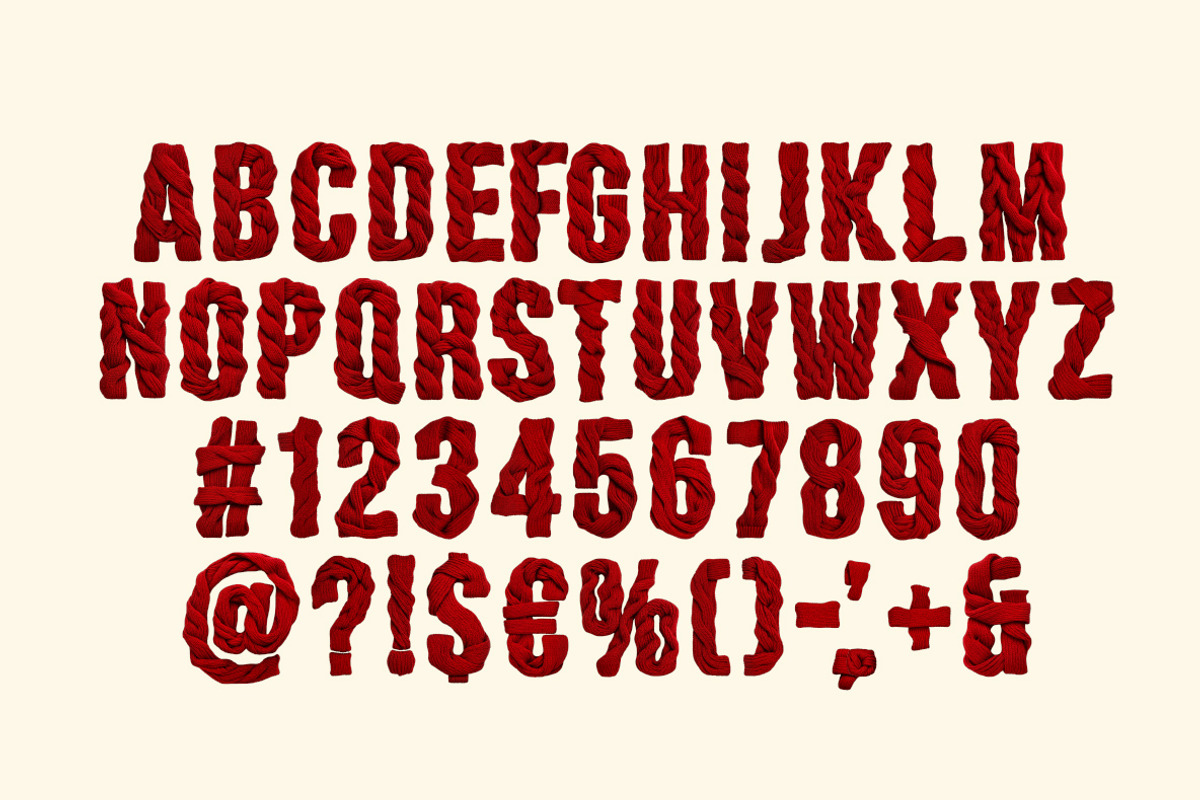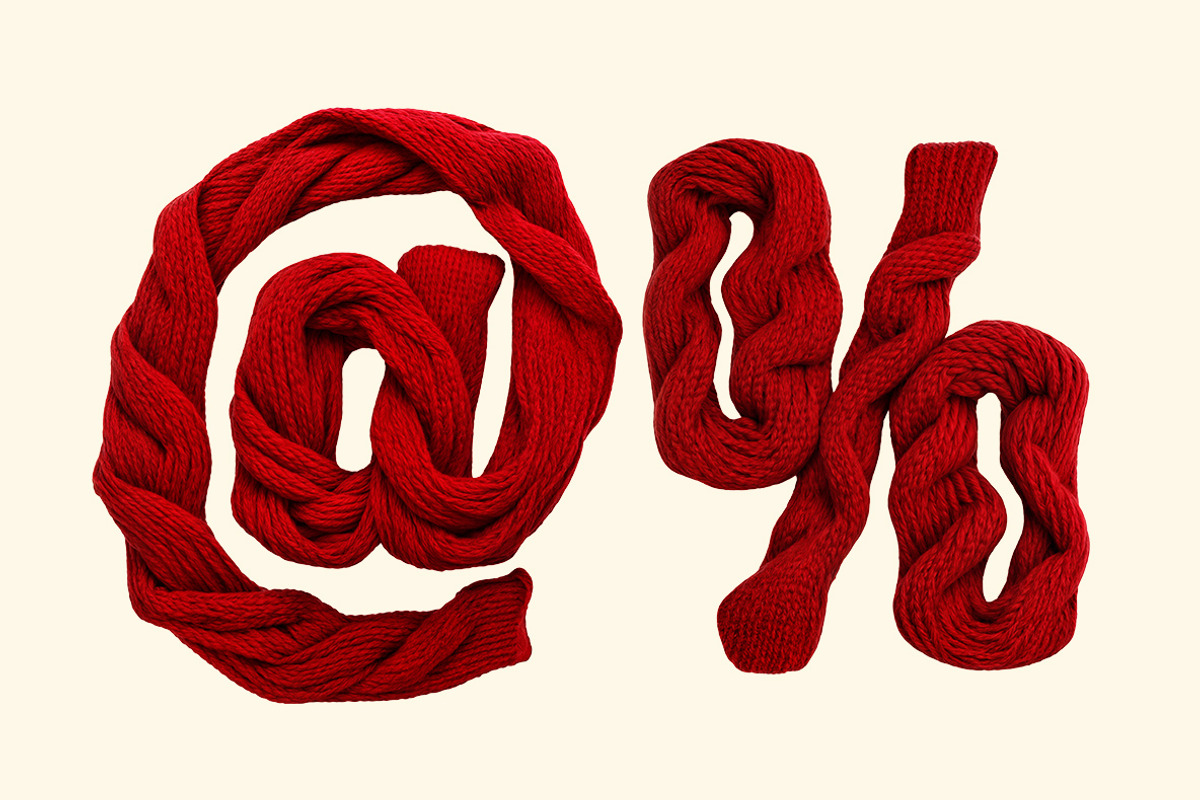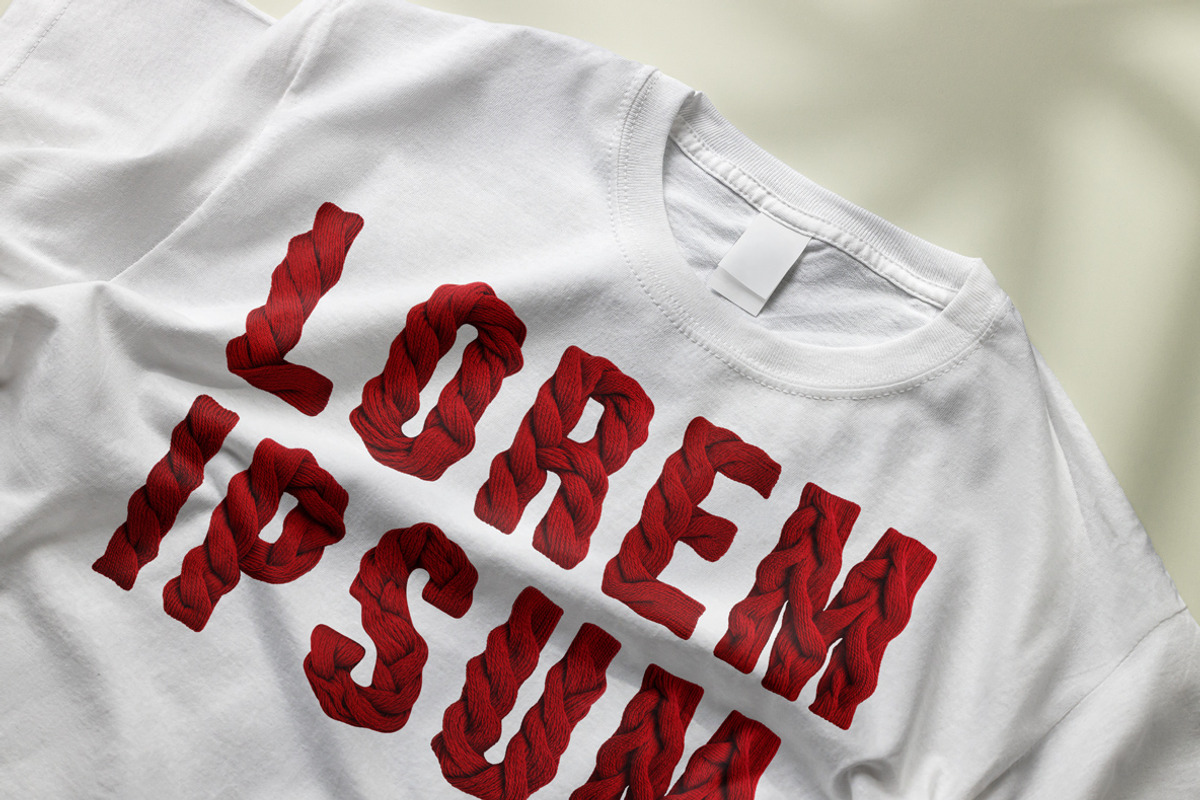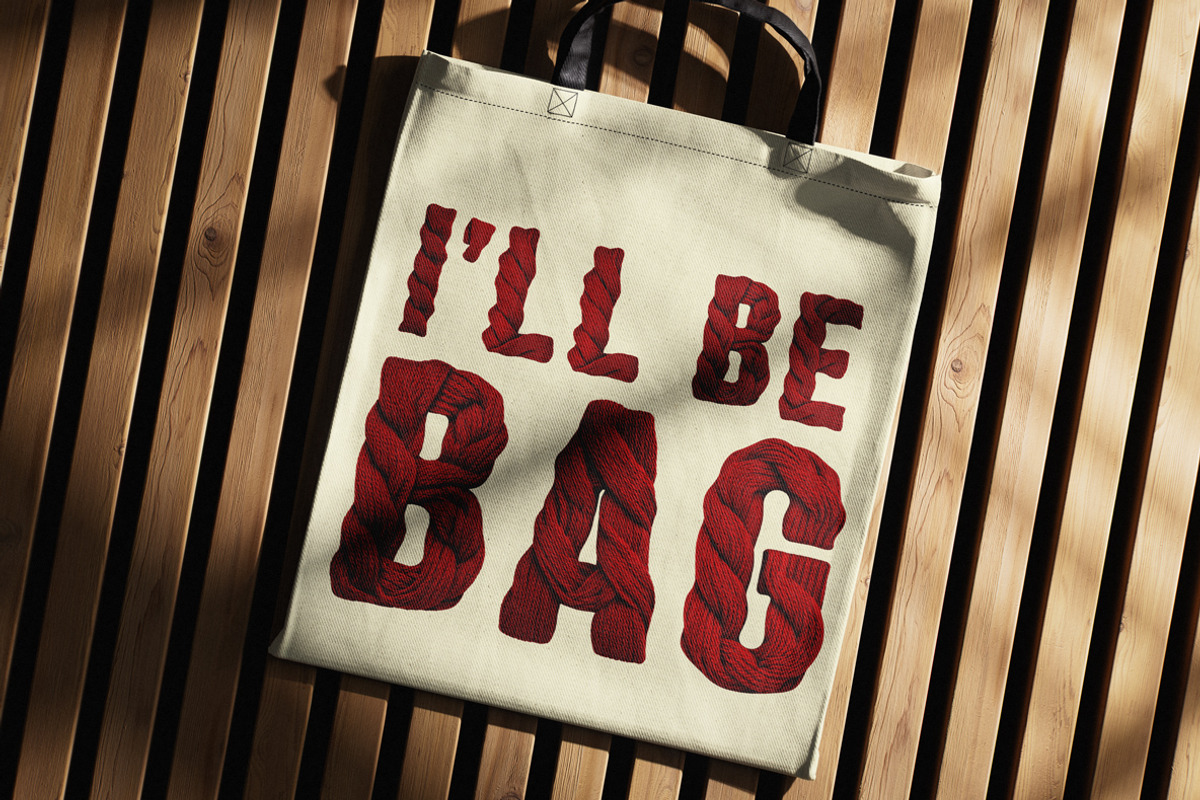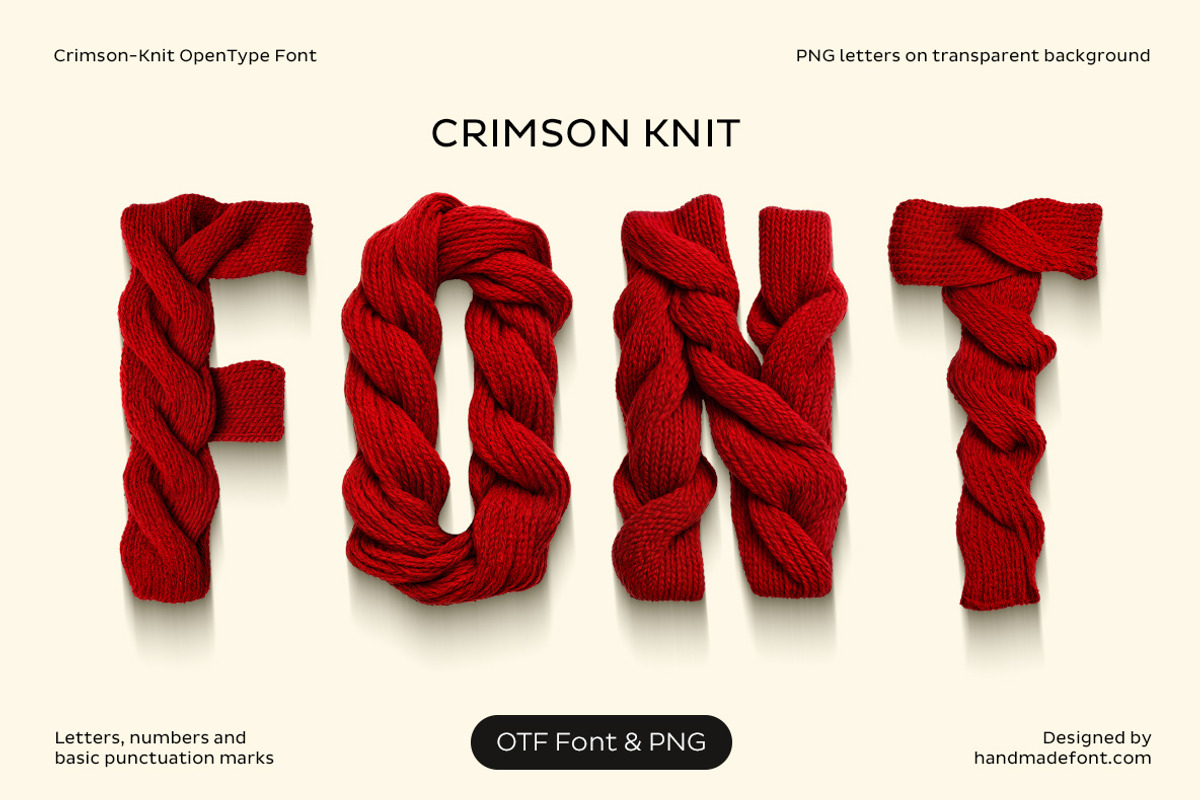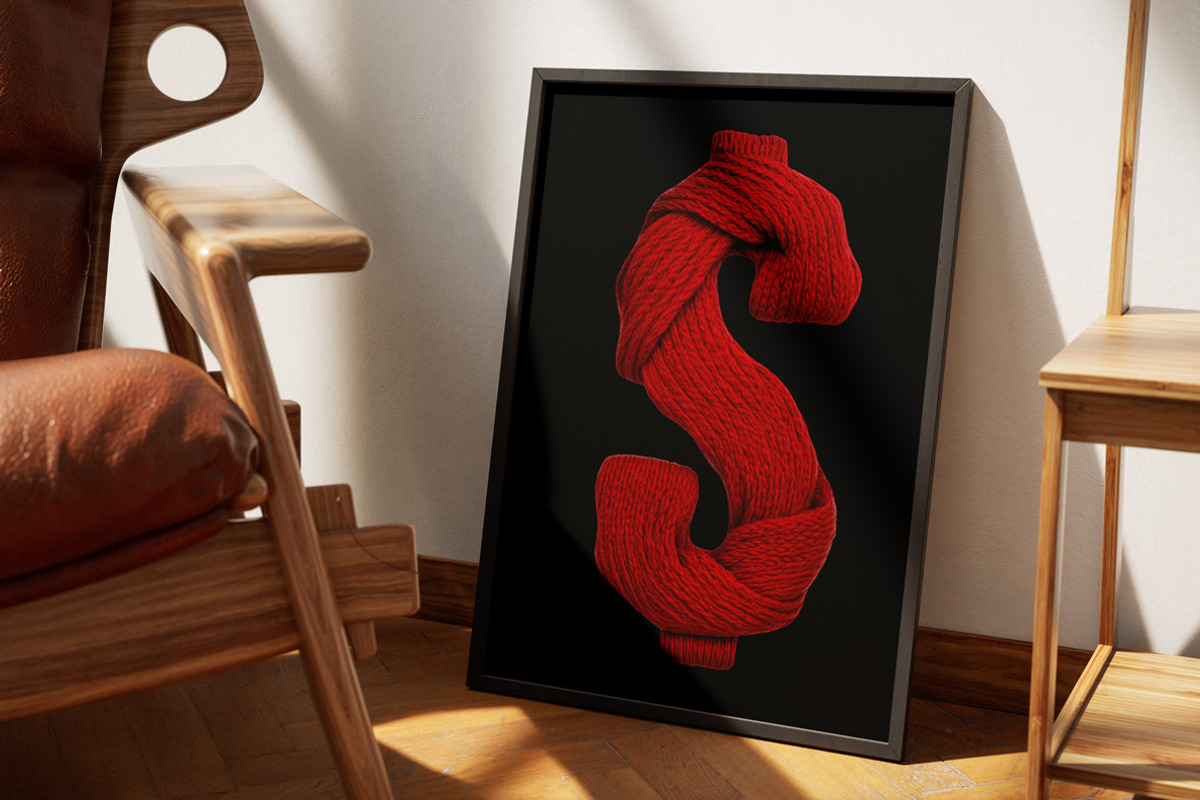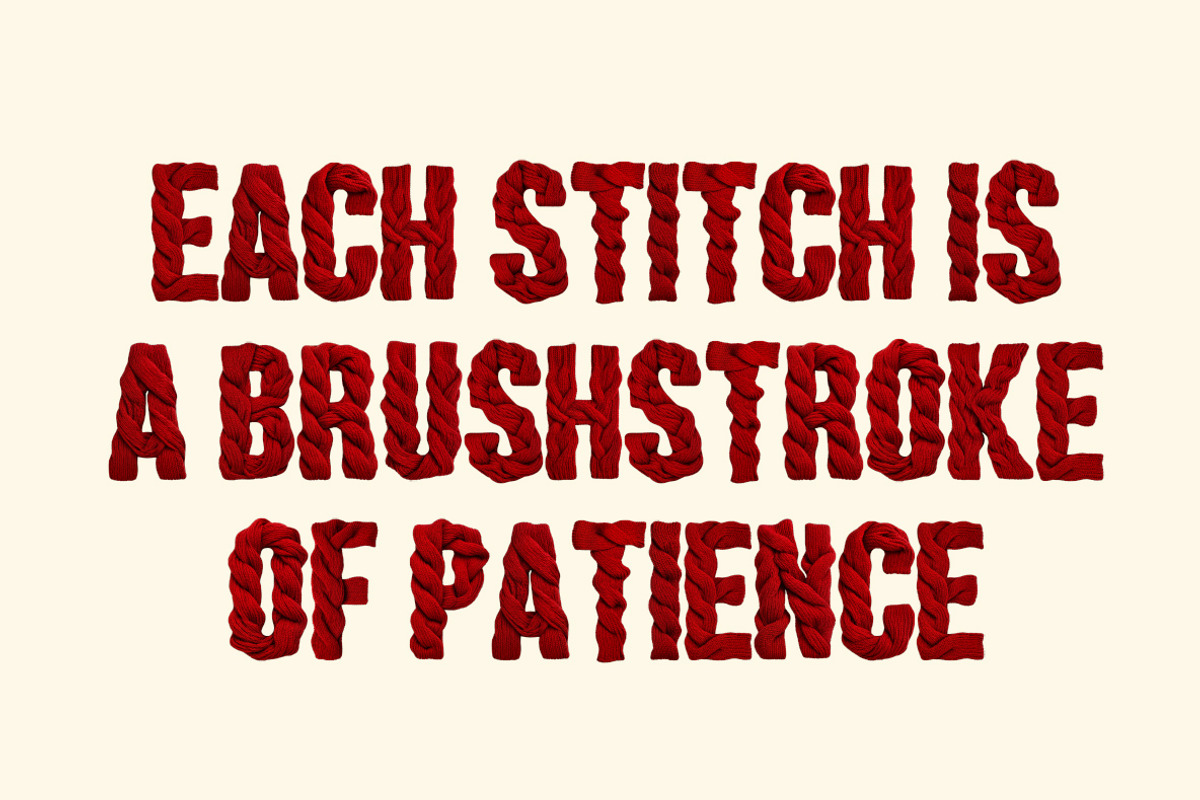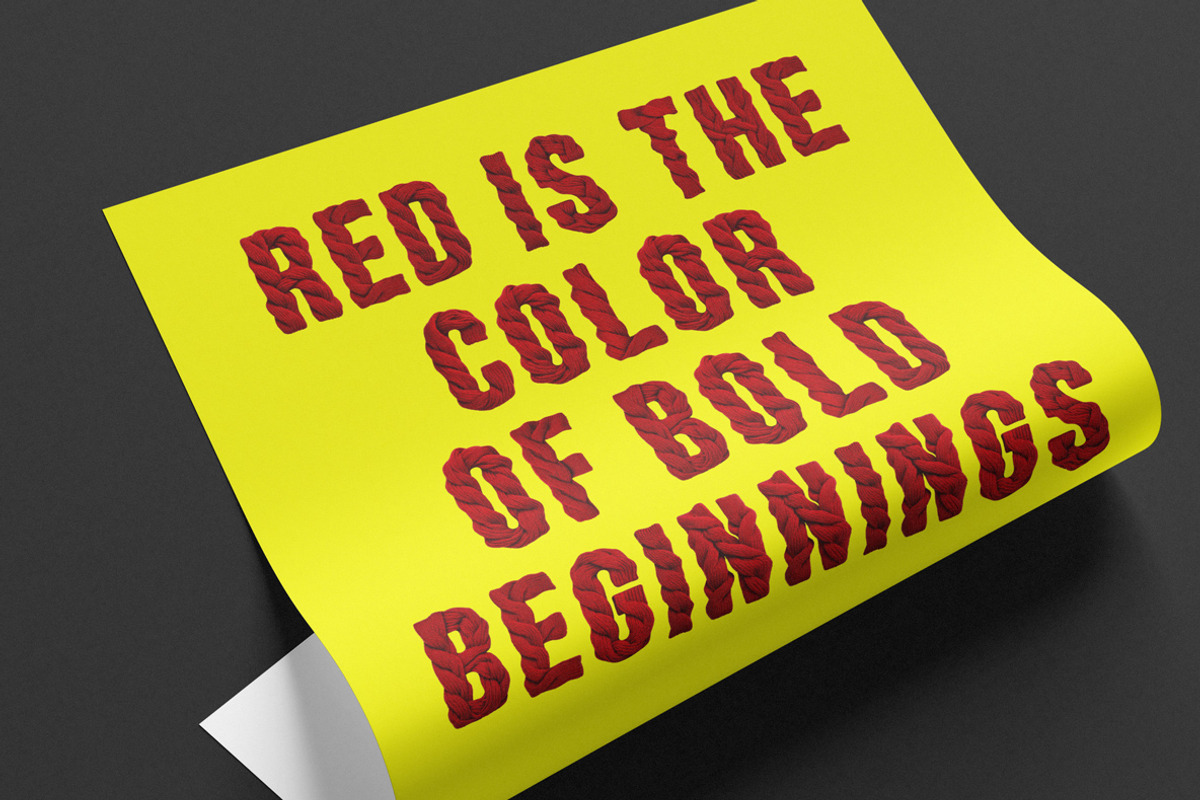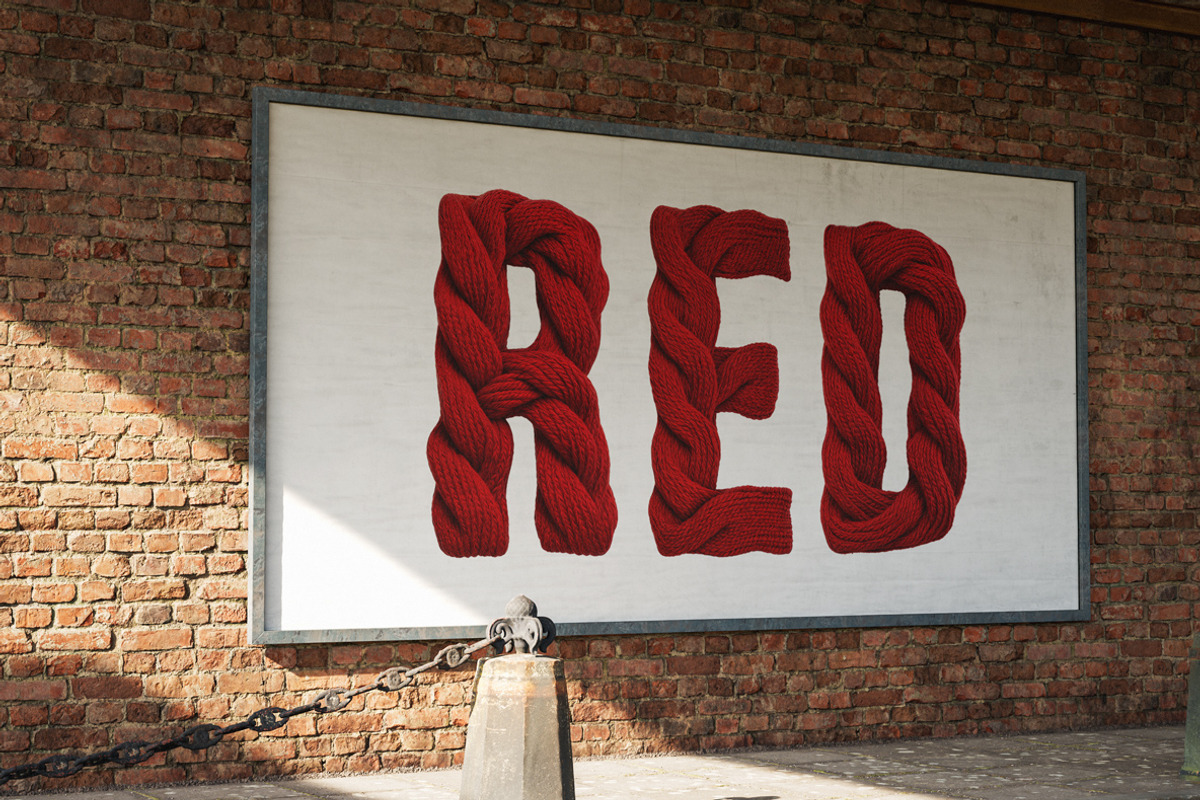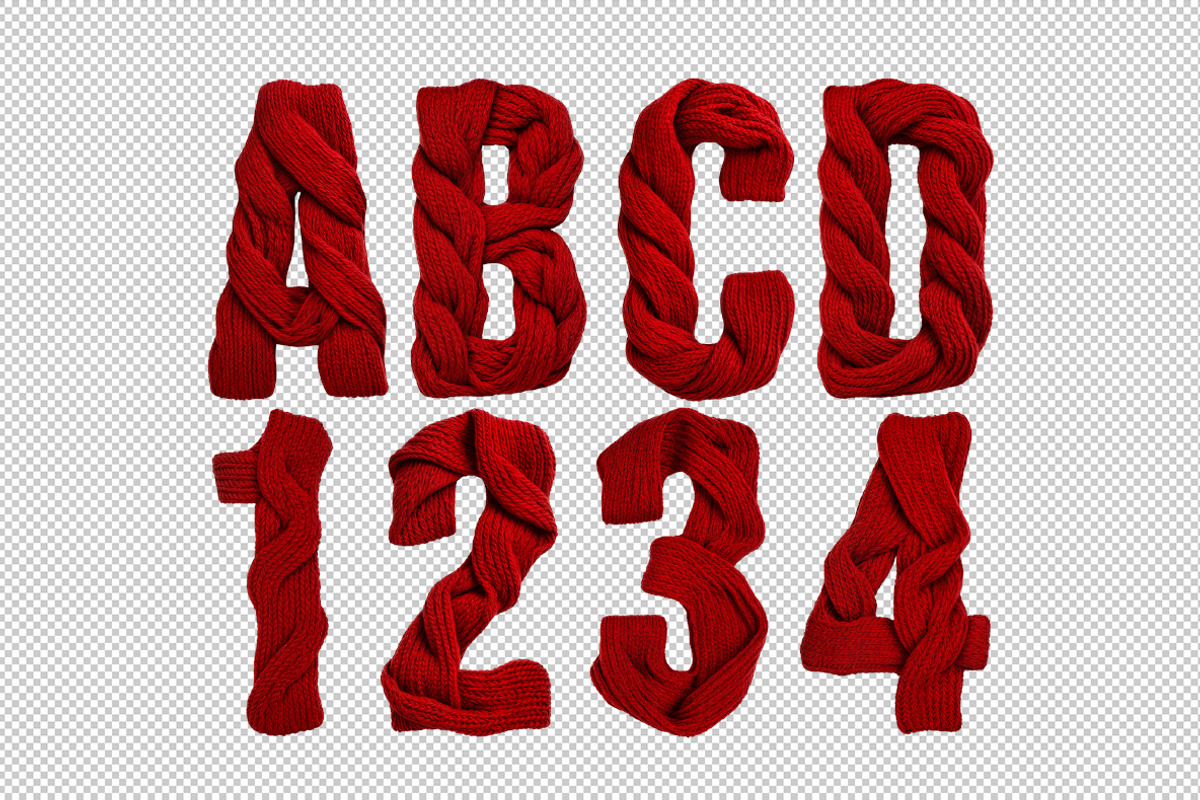
Crimson Knit Font
Crimson Knit Font is a warm hug in typographic form. This unique font transforms letters into thick, textured, braided yarns in a vibrant crimson red—each character as cozy as a handmade scarf on a cold winter’s day. Whether you’re creating festive greetings, holiday designs, or simply want to add a handcrafted touch to your message, Crimson Knit Font delivers. With a blend of softness and bold personality, it’s the perfect way to make your text feel warm, inviting, and full of heart. Ideal for craft brands, winter campaigns, or any design that needs a splash of cozy charm.
A high definition OpenType Font. Contains uppercase characters, numerals and basic punctuation. (Draw height roughly 800 pixels). All letters and glyphs that comprises this font you can see on the preview.
- Letters : A B C D E F G H I J K L M N O P Q R S T U V W X Y Z
- Numbers : 0 1 2 3 4 5 6 7 8 9
- Others : ! ? - . ' $ € % & # @